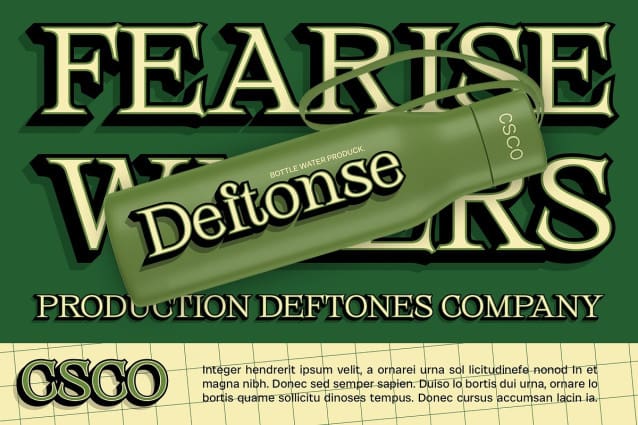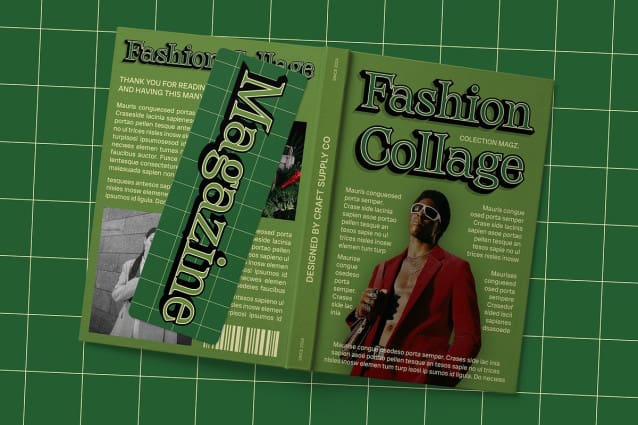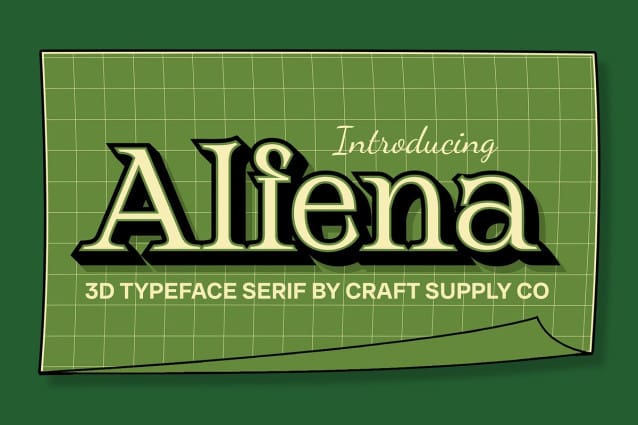
Alfena 3D Font
Alfena 3D Font is a modern serif font that blends a retro feel with a 3D effect to create a unique and attractive appearance. Its design combines classic serif style with a retro touch that evokes nostalgia, while the 3D effect adds an interesting visual dimension.
Alfena 3D is suitable for designs that aim to create a striking and classy look, with a hint of retro that recalls the past. Whether you’re designing a poster, a logo, or a website, Alfena3D can help your message stand out and grab attention.
Despite its retro feel, Alfena 3D is versatile and can be used in a variety of design contexts. Its unique combination of classic serif style, retro feel, and 3D effect makes it a standout choice for designers looking to add a touch of nostalgia and class to their projects.
Elevate your designs with Alfena 3D, where retro charm meets modern design. Its unique blend of classic serif style, retro feel, and 3D effect makes it perfect for projects that demand attention and want to make a stylish statement.